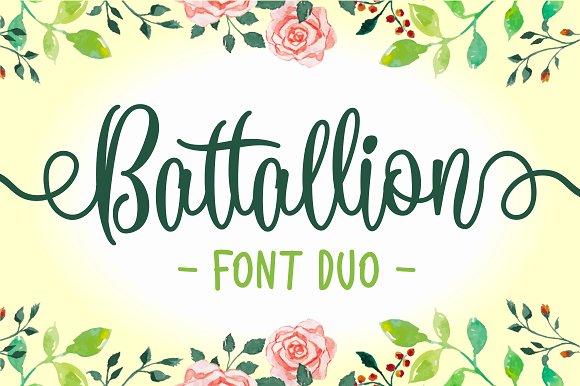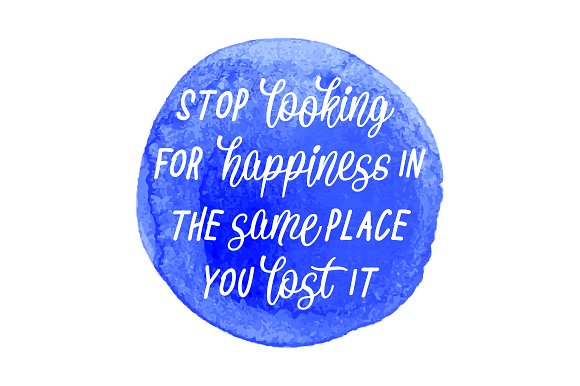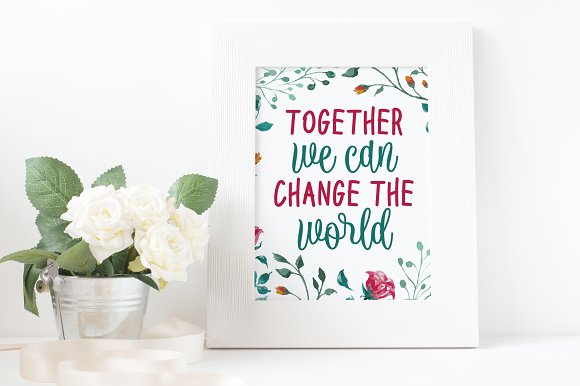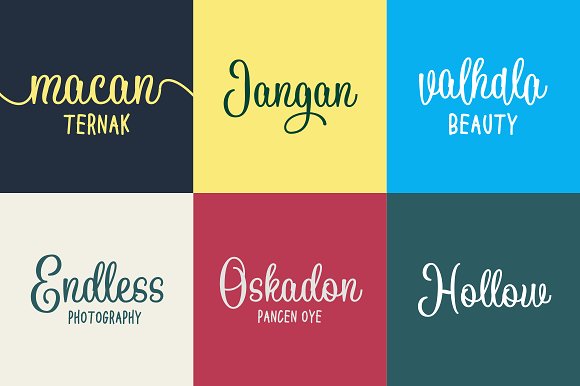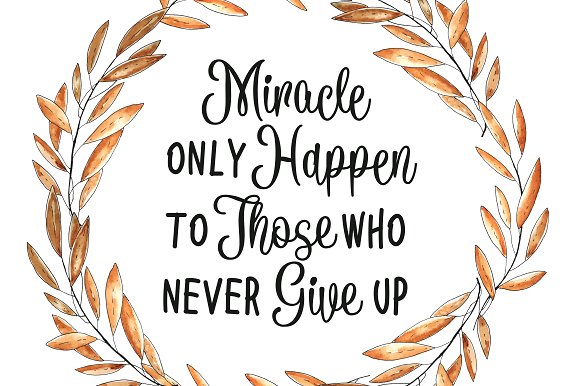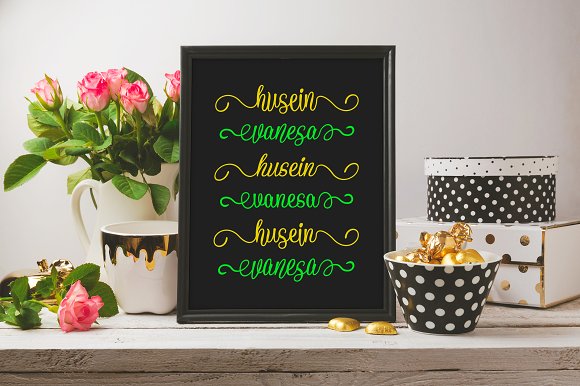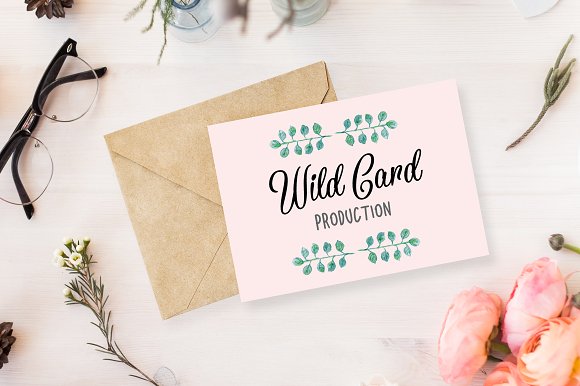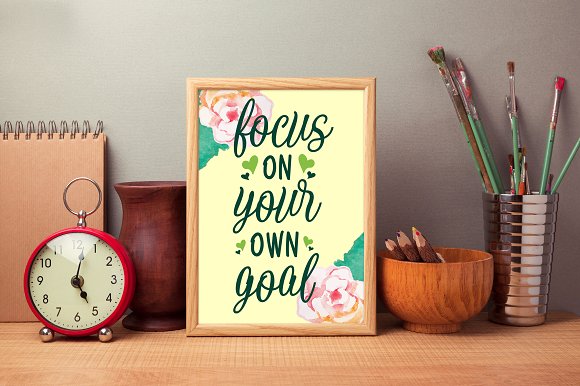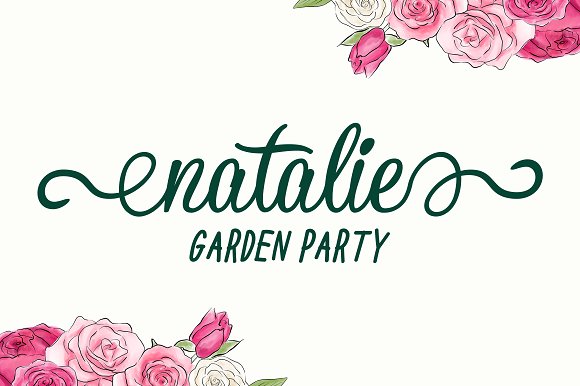
Battallion Font Duo
Introducing Battallion Font Duo. A perfect combination between modern calligraphy script and handwritten font. You can play around with the main script. It can be plain style or bouncy style with the opentype features. You can use this font for make some quotes, logotype, wedding invitation, love letter and many more.